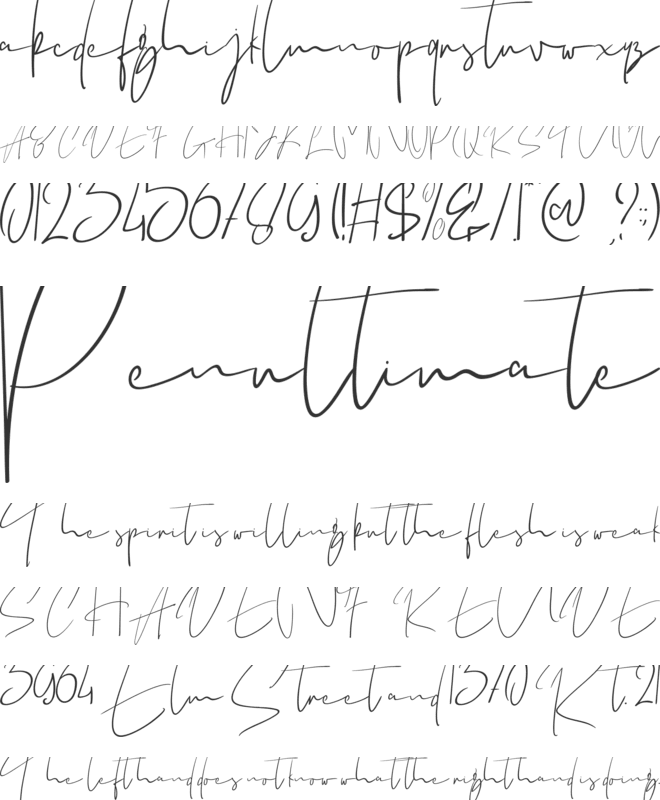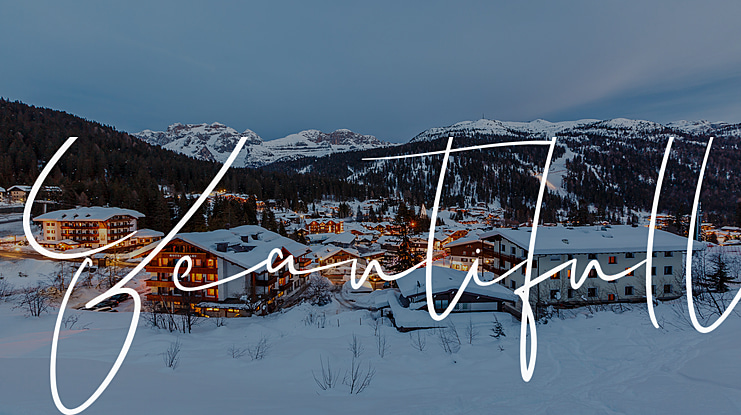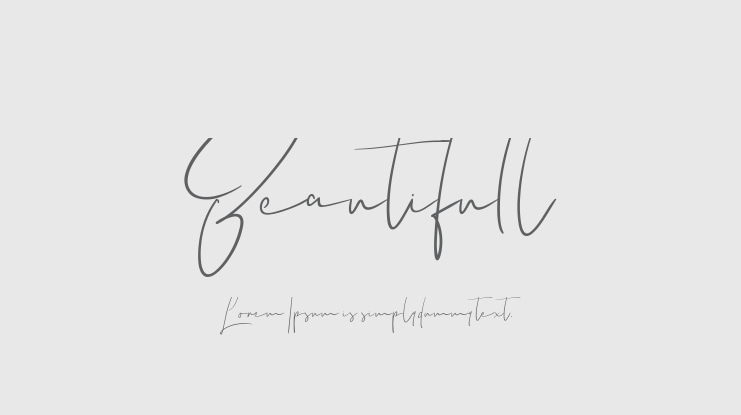
Beautifull Font Family
Biham Santoso
It’s an elegant, light serif and a casual handwritten script designed to complement each other perfectly. Together or apart, these fonts are ideal for adding a chic and cheery touch to your crafts. This font is PUA encoded which means you can access all glyphs and swashes with ease!